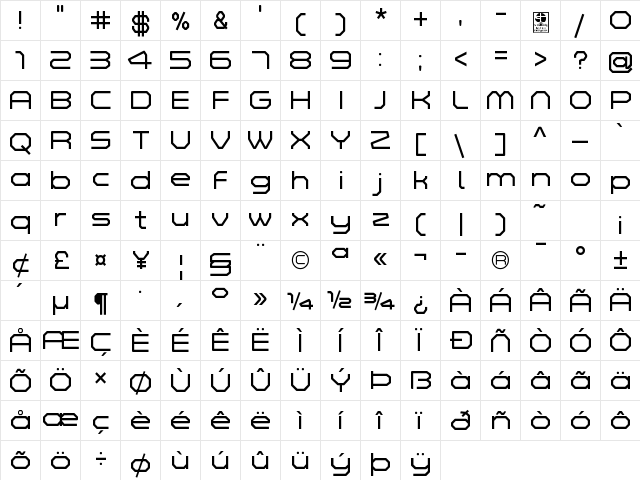
Zelta-Six Demo Light Regular
| Foundry | StudioTypo |
| Designer | Mehmet Abac |
Design Context for Zelta-Six Demo Light Typeface
Zelta-Six Demo Light takes a measured approach to typography — its balanced proportions and neutral character make it a reliable workhorse for both digital and print work. The delicate stroke weight brings airiness and refinement to layouts.